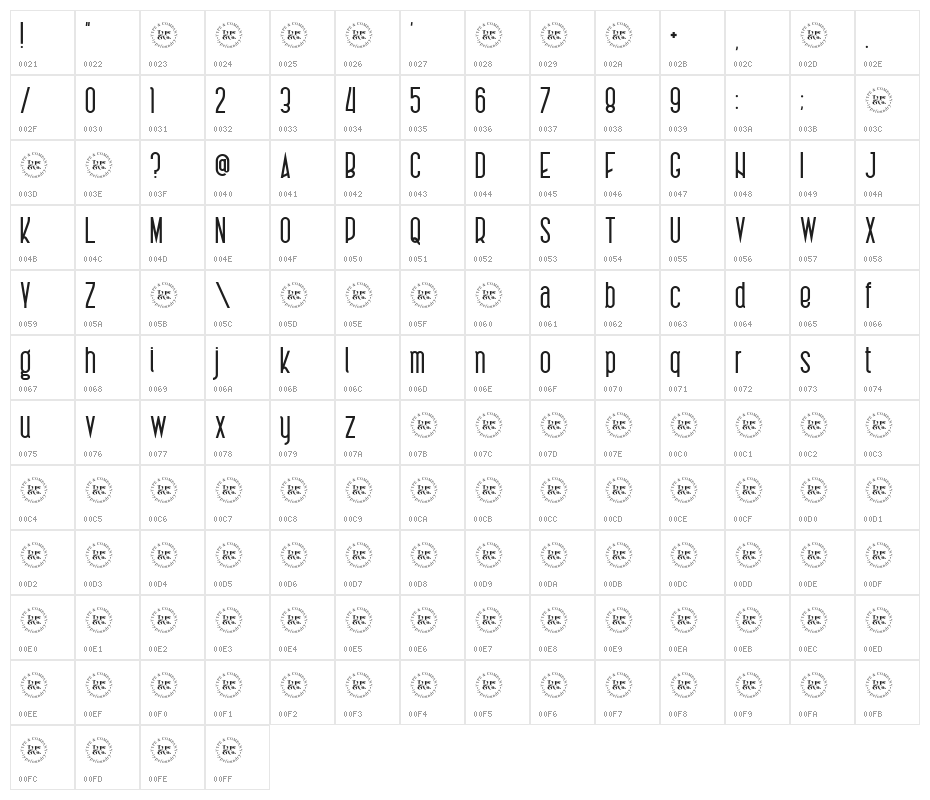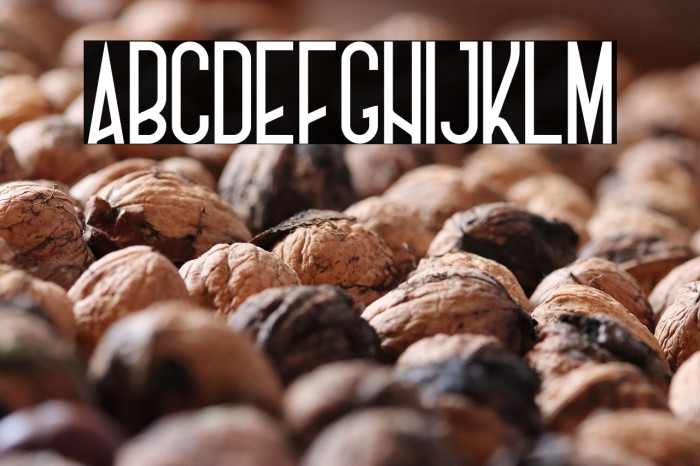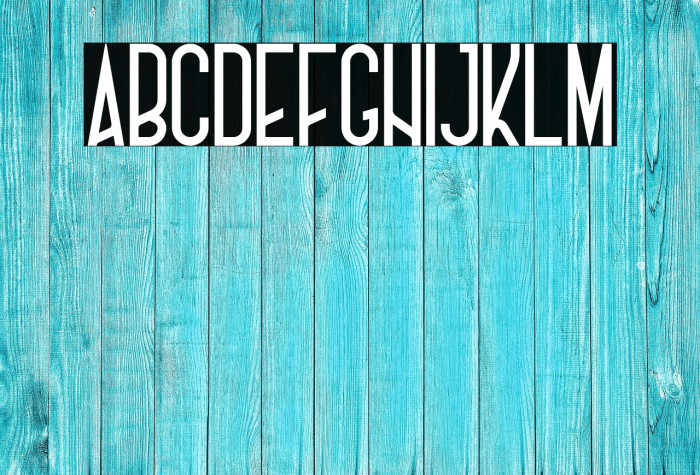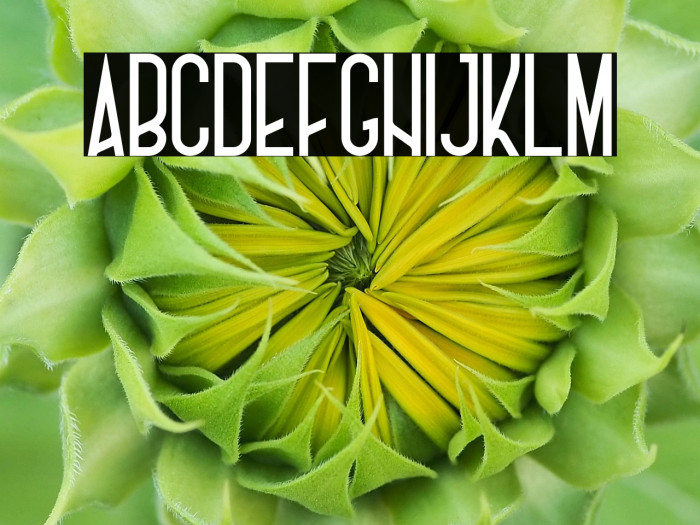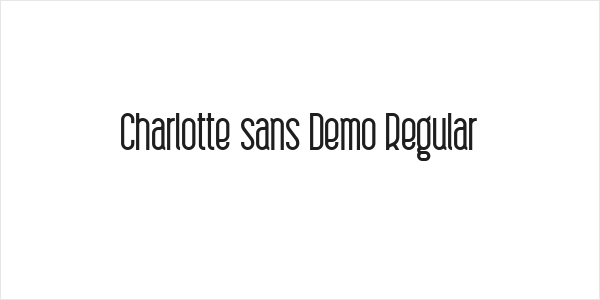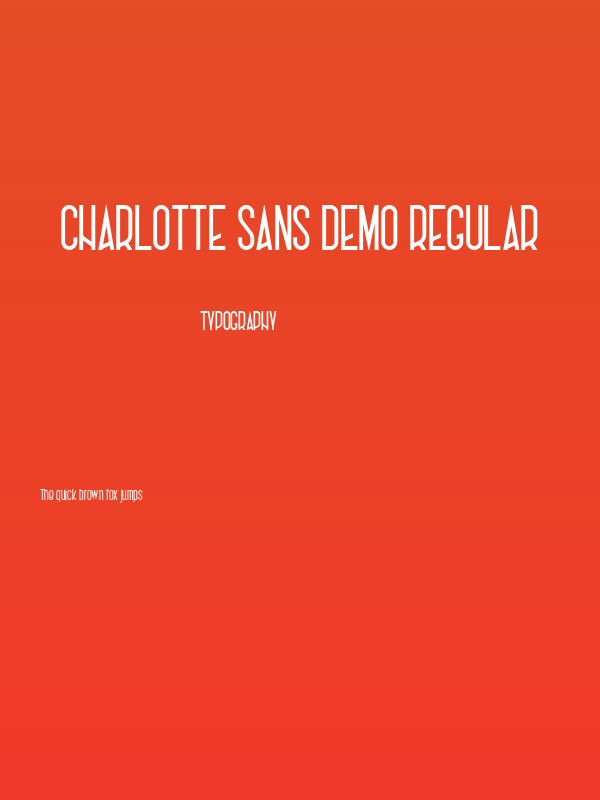
Charlotte sans Demo Regular Font
Charlotte sans Demo Regular Description
This font features a sleek and modern sans-serif design with a tall, narrow structure. The characters exhibit a consistent stroke width, giving it a clean and uniform appearance. The uppercase letters are particularly elongated, while the lowercase letters maintain a balanced proportion. The numerals are distinct and easy to read, matching the overall aesthetic. Special characters are included, maintaining the same stylistic elements. This font is versatile, suitable for various design projects that require a contemporary and professional look.